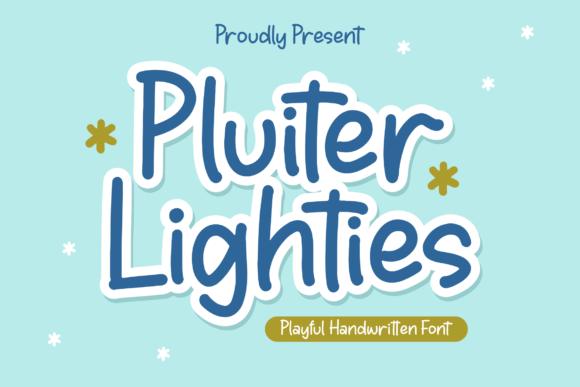
Introducing Pluitier Lighties Font - a delightful, playful addition to your design arsenal. Experience the charm of every letter, stroke, and curve, meticulously crafted for an authentic handmade feel. Immerse yourself in the world of playful aesthetics with this extraordinary handwritten font, perfect for adding a touch of joy to your creative designs.
Unleash your imagination and let Pluitier Lighties Font dance across your screens, captivating your audience with its captivating presence. Whether you're a seasoned designer or just starting your creative journey, this font is your passport to a world of endless possibilities. Elevate your website logos, social media posts, branding materials, and more with the playful energy of Pluitier Lighties Font.
With every use, this font will ignite your creativity, inspiring you to explore new horizons and push boundaries. Let Pluiter Lighties Font be your artistic companion, guiding you towards remarkable designs that leave a lasting impression. Join the creative revolution and embrace the playful spirit of Pluitier Lighties Font today!